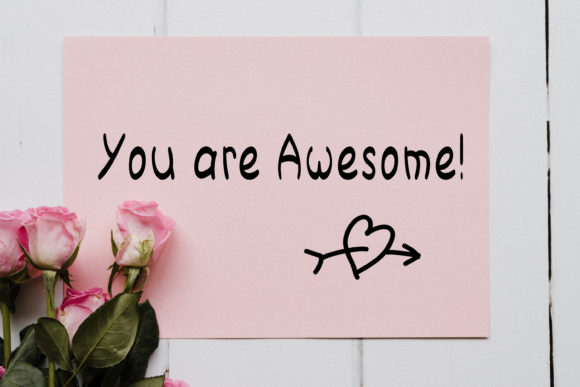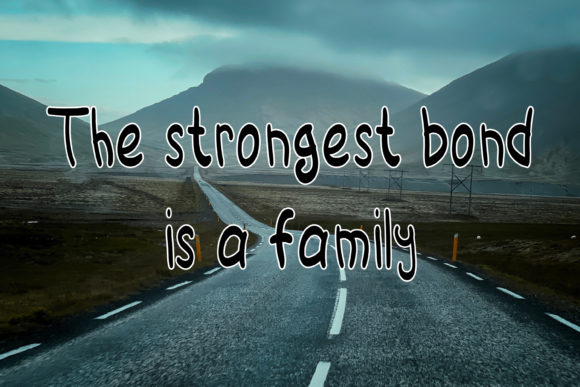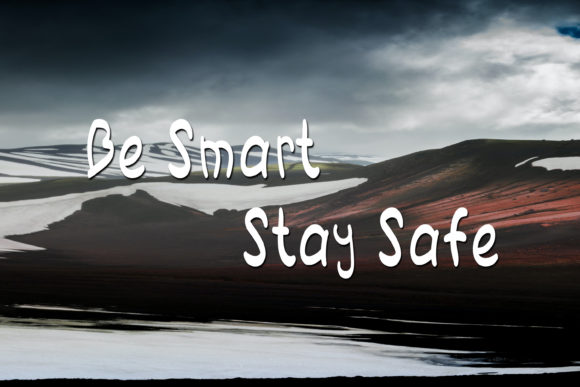
Introduction to Iruquois Font
Iruquois is a minimal and neat handwritten font.
Key Features of Iruquois Font
Why Choose Iruquois Font?
Iruquois Font offers exceptional quality and versatility, making it a valuable addition to your design toolkit. Whether you’re creating for personal projects or commercial use, Iruquois Font delivers professional results.